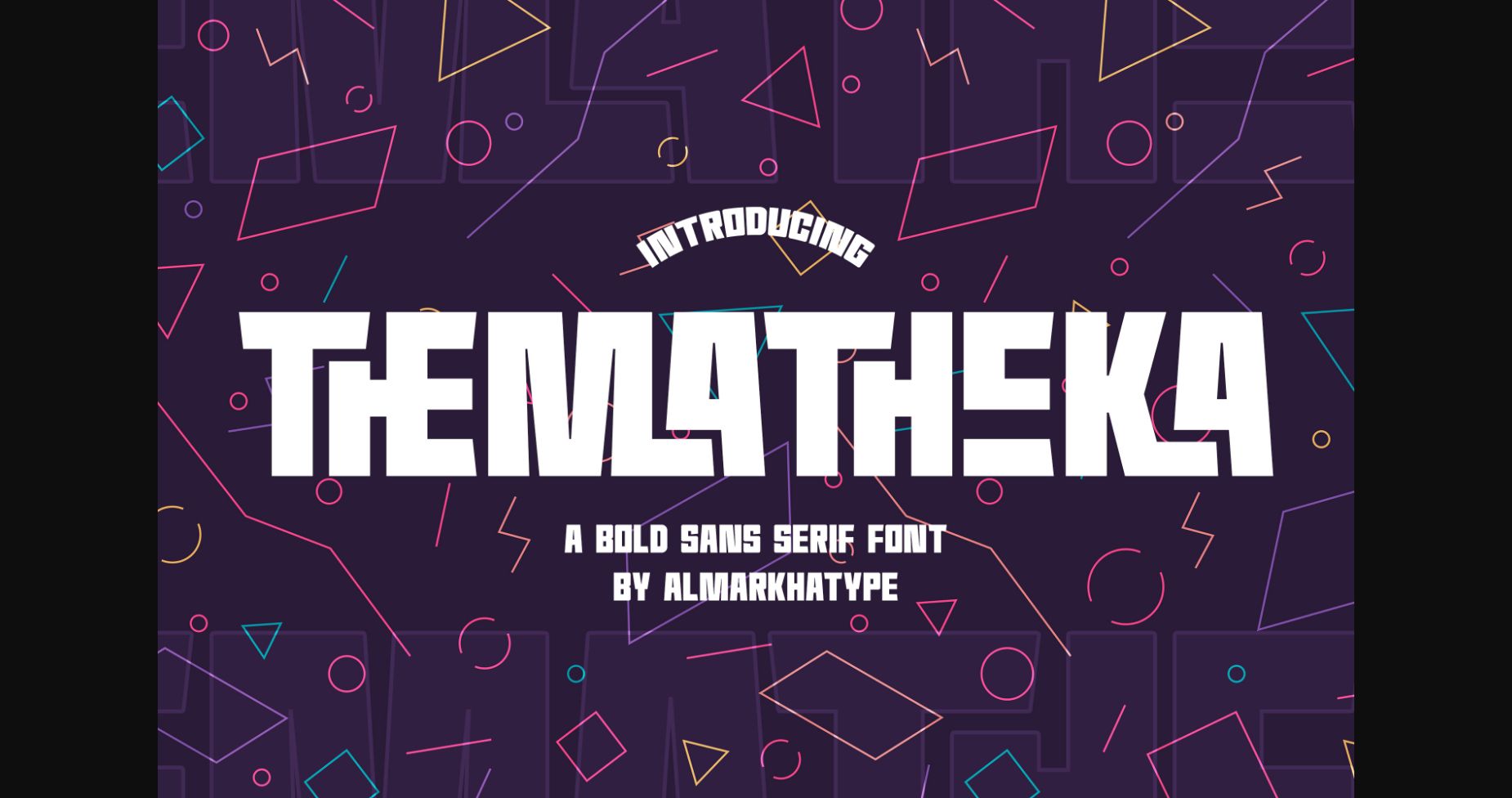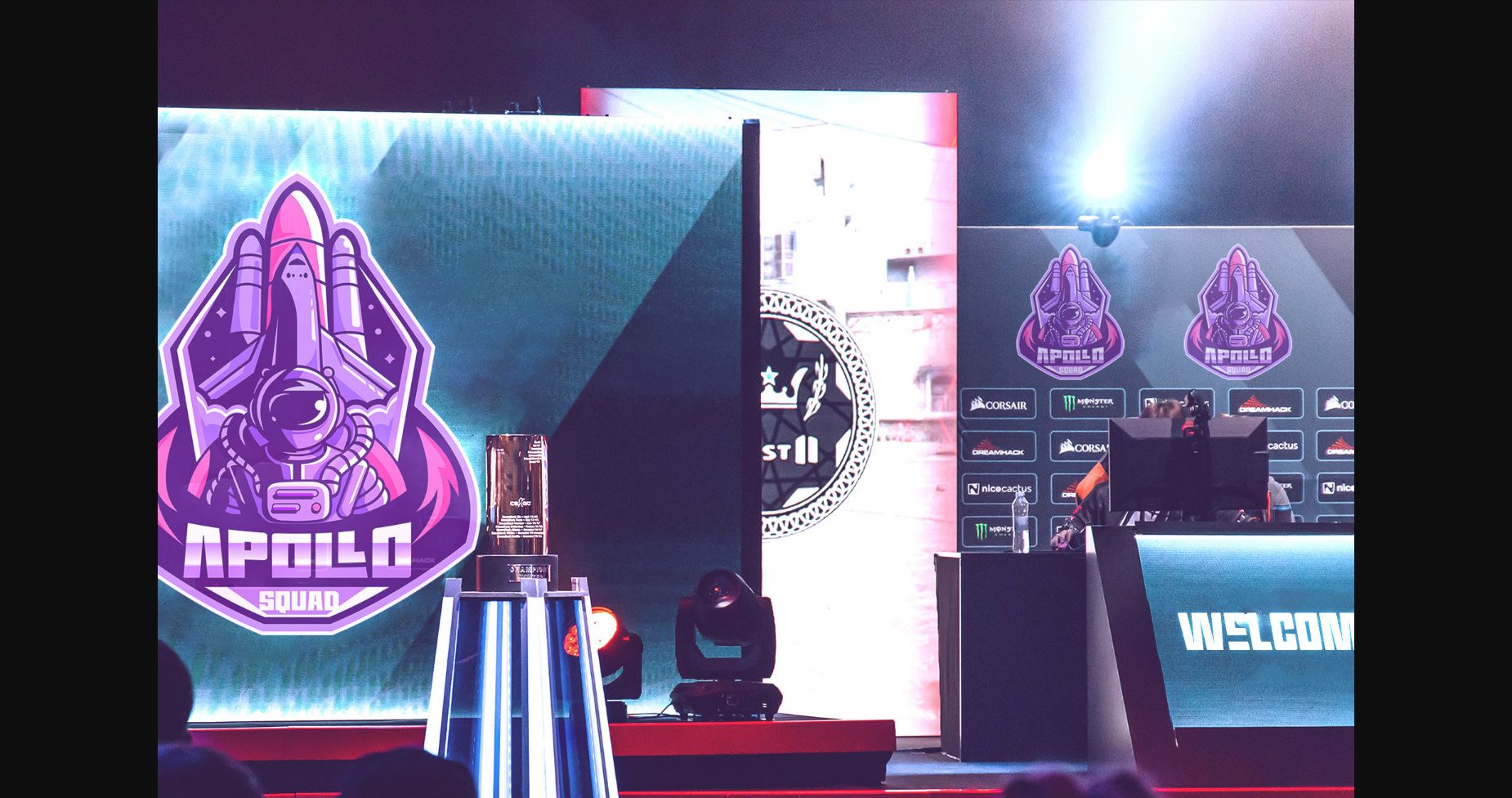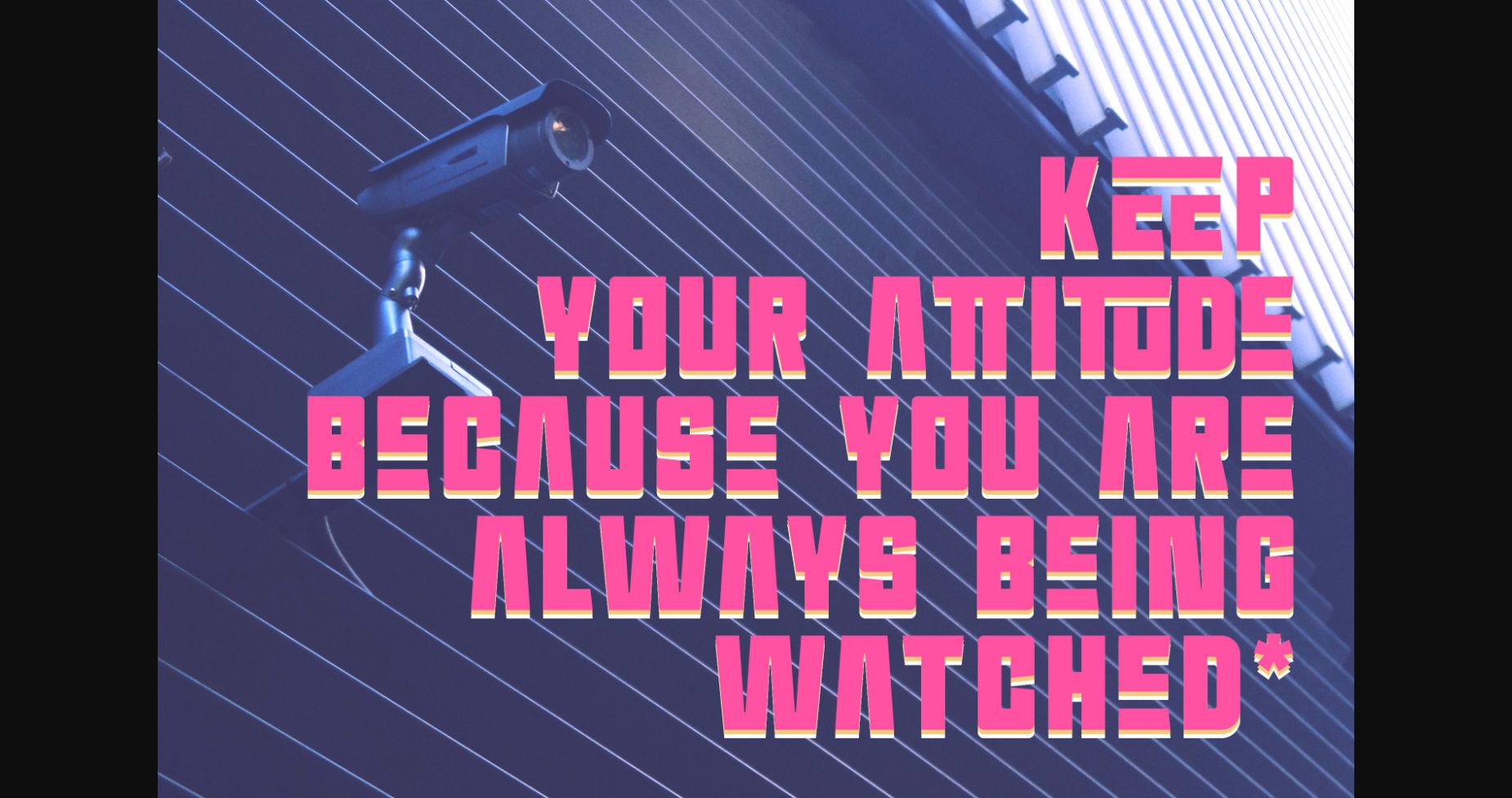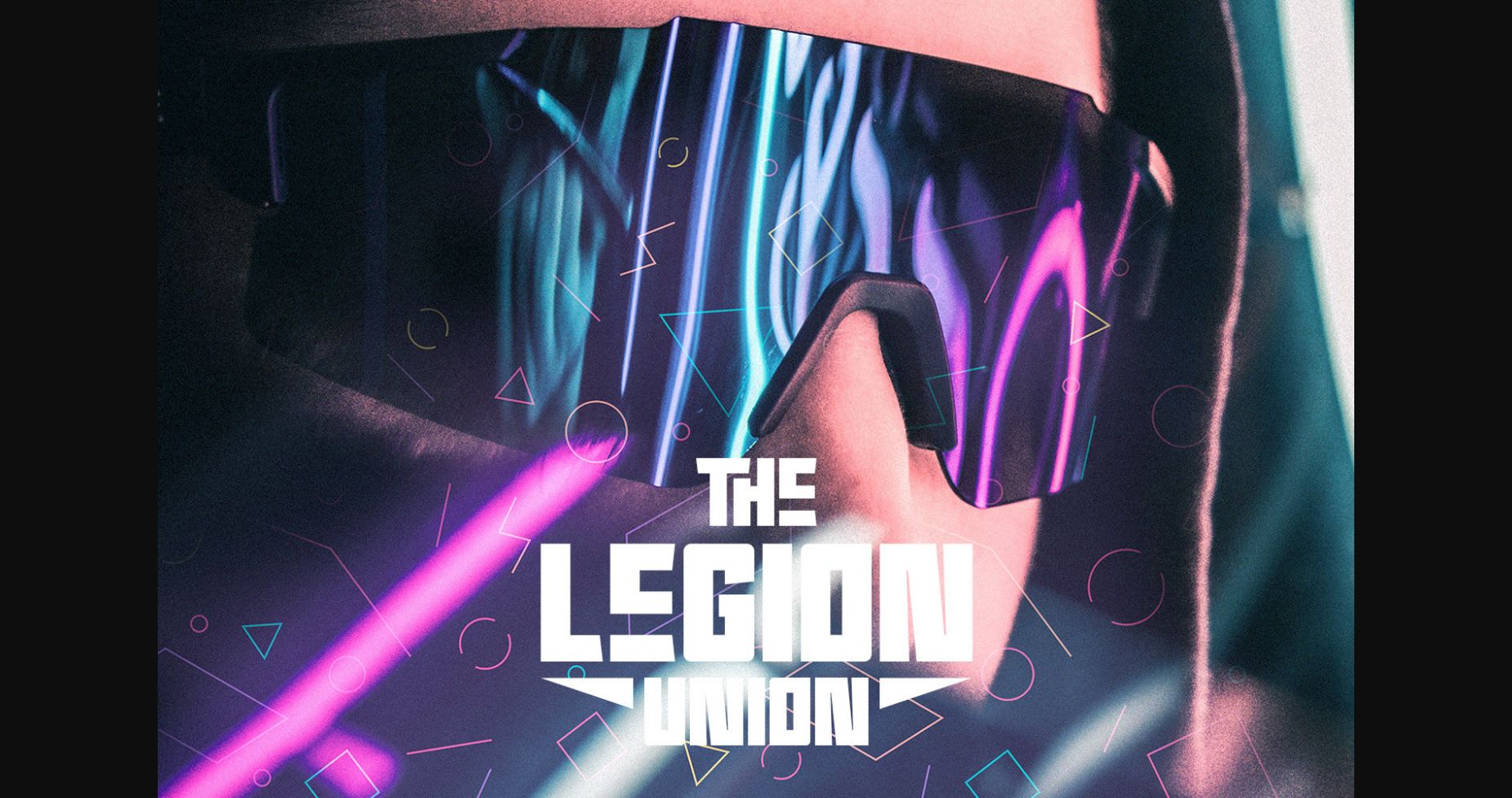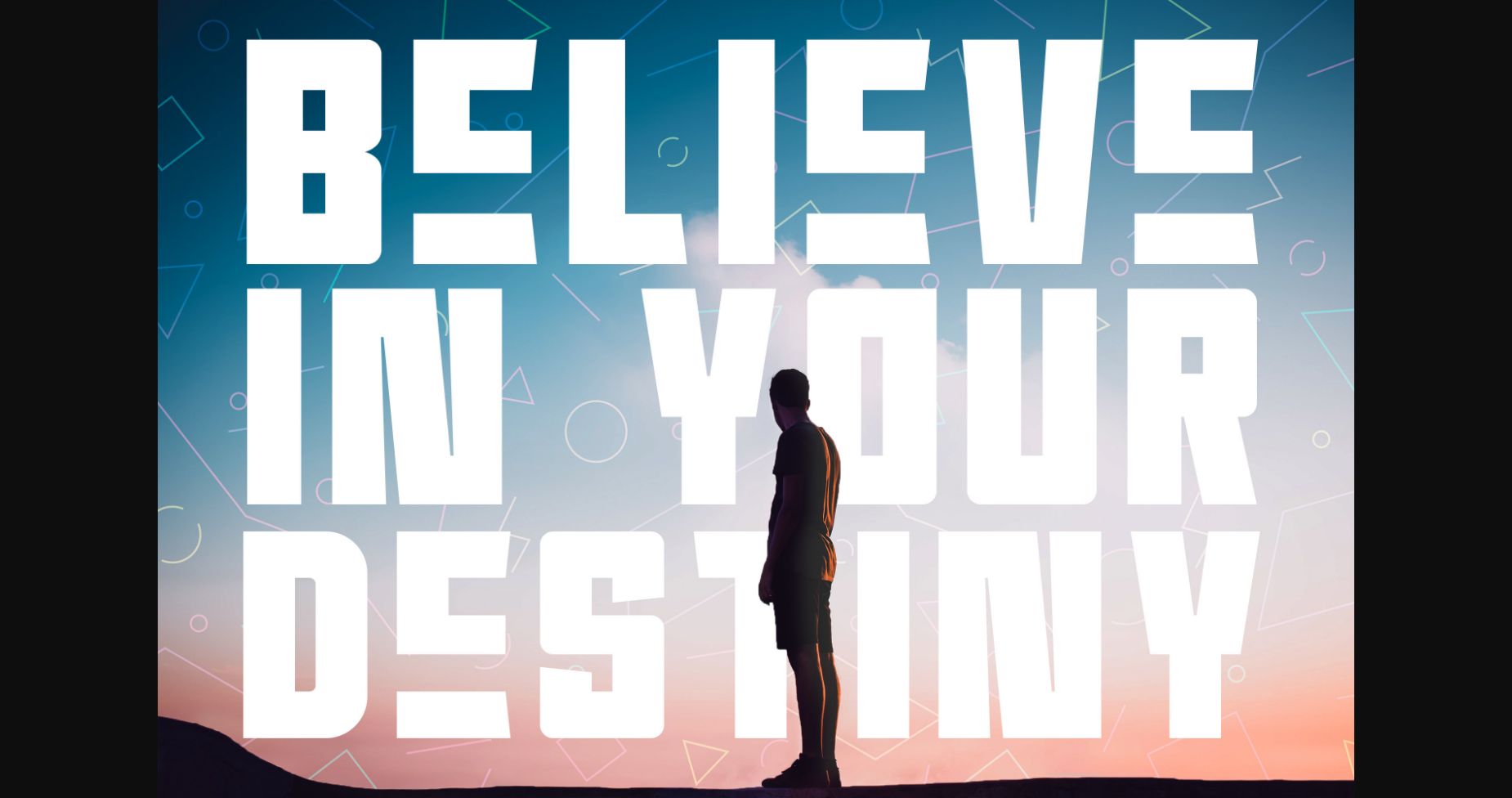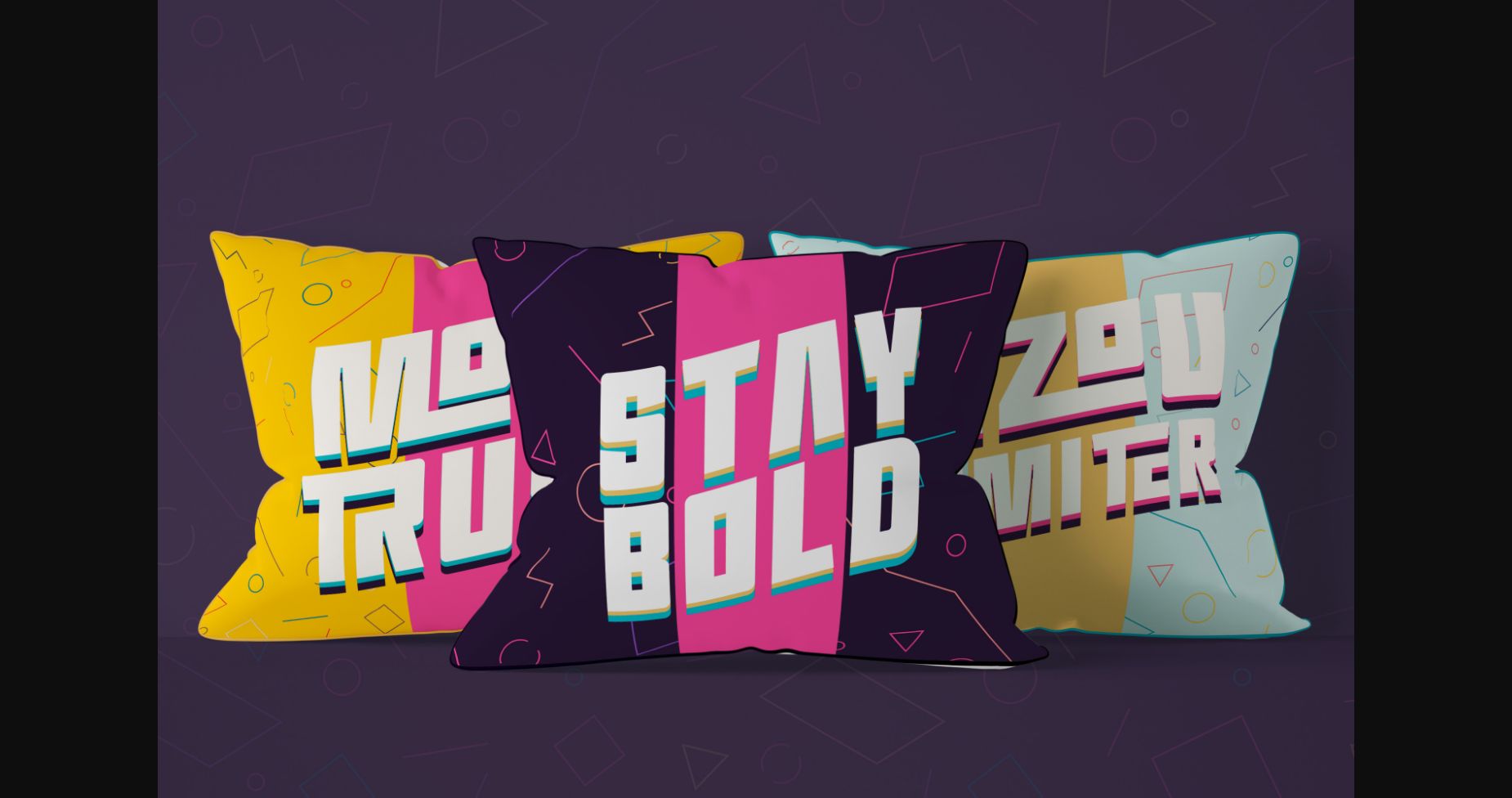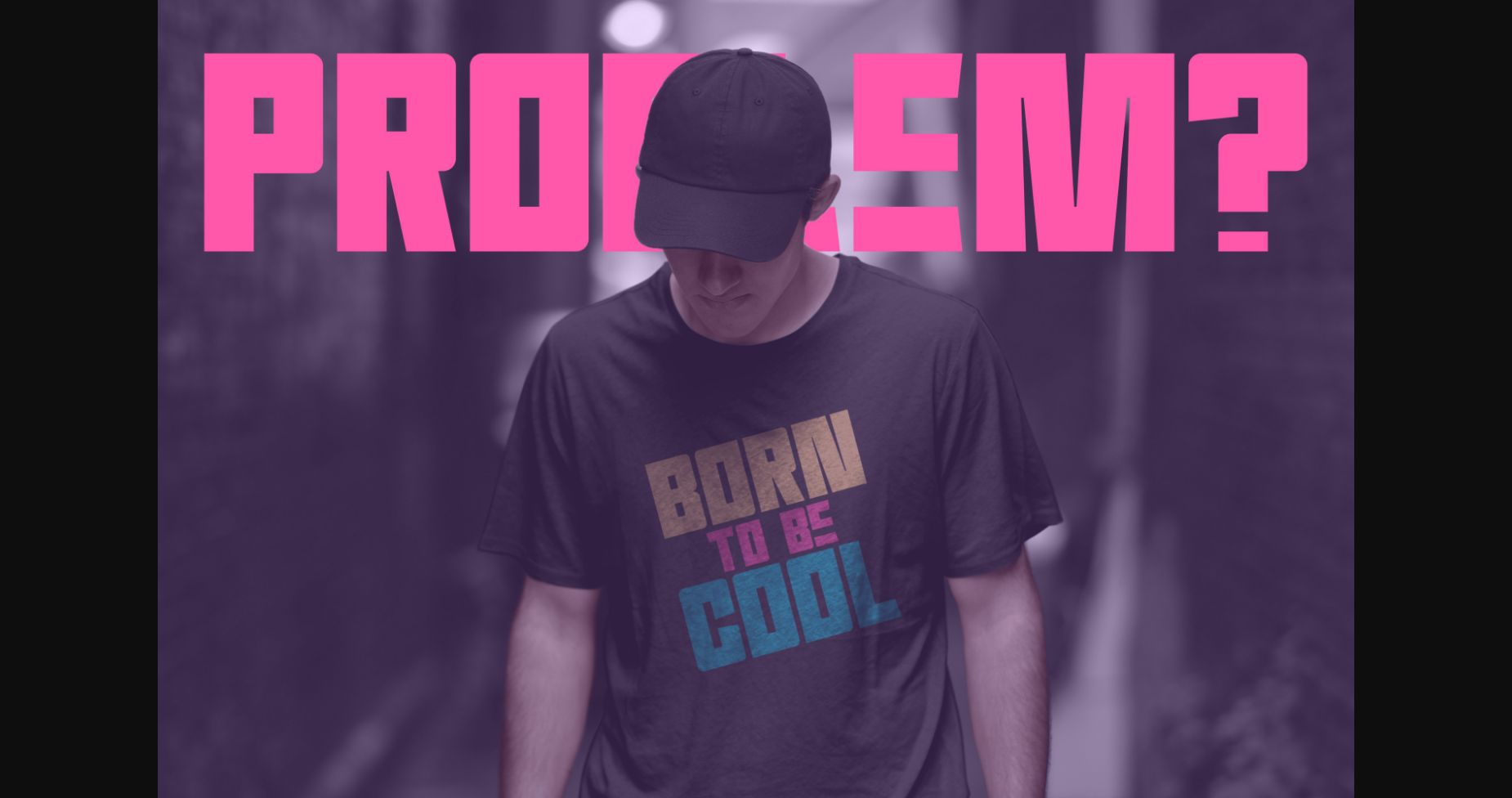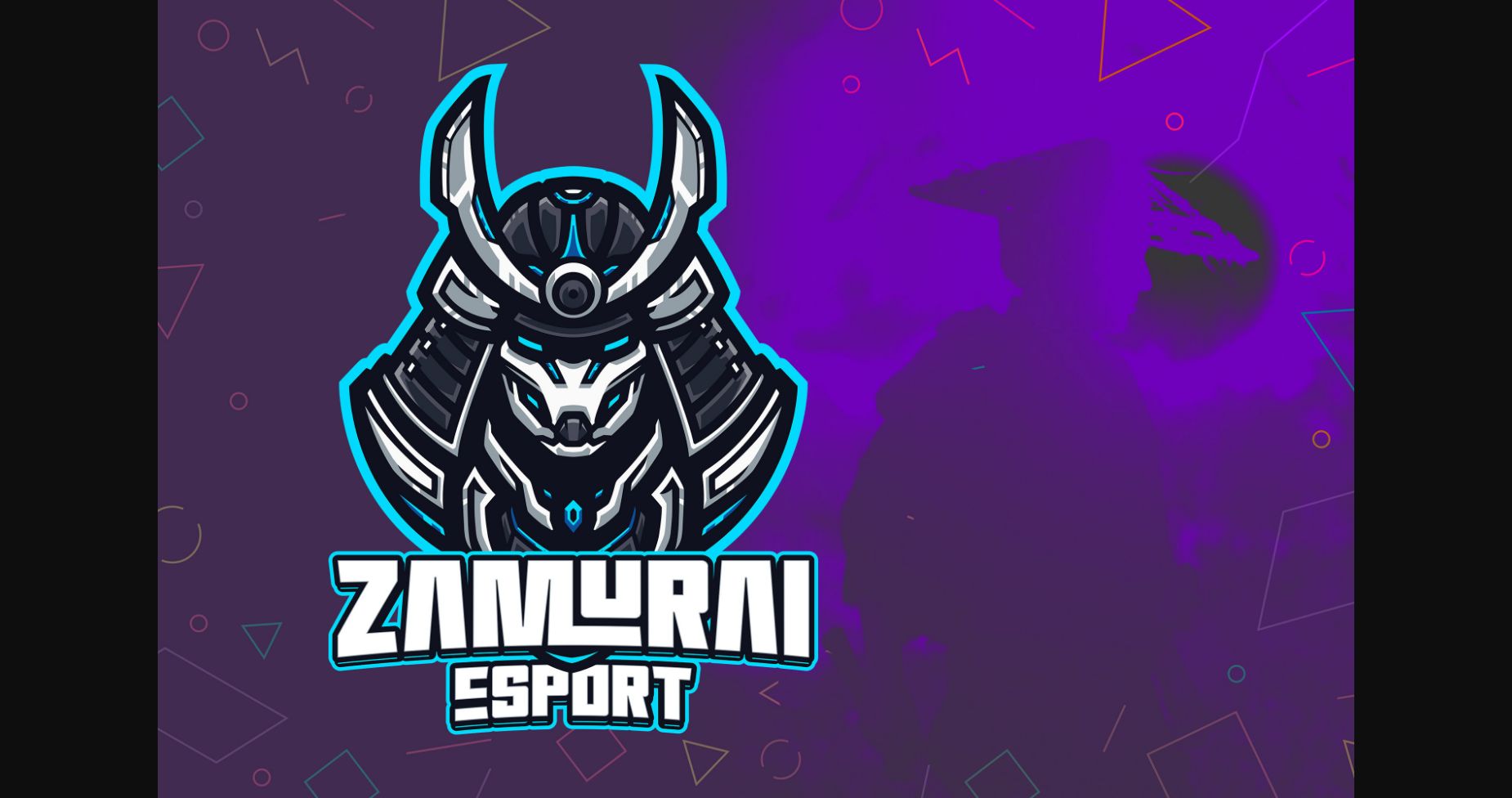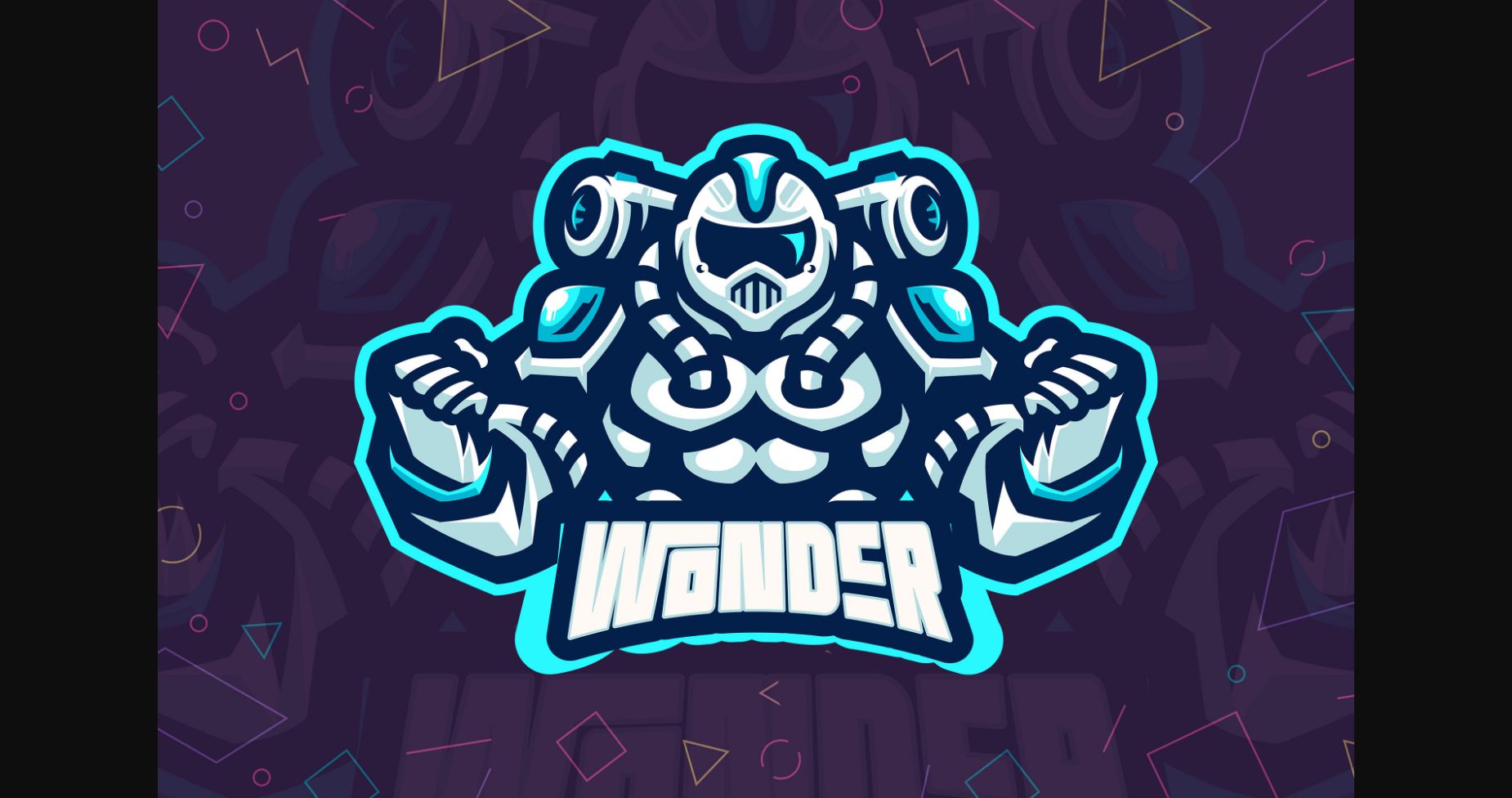
Thematheka Font
About Thematheka Font
Hello Everyone, Introduce our new collection, Thematheka – Bold Display Sans With 29 Ligatures, Inspired by famous logos of Technology and brands that have very strong characteristics,
very suitable for posters, packaging, branding, logotype, and more.
Thematheka font with strong and challenging nuances. very suitable for the title, typography, Poster, magazines, brochures, packaging, Websites, and much more for your design needs, making your designs more modern and professional.